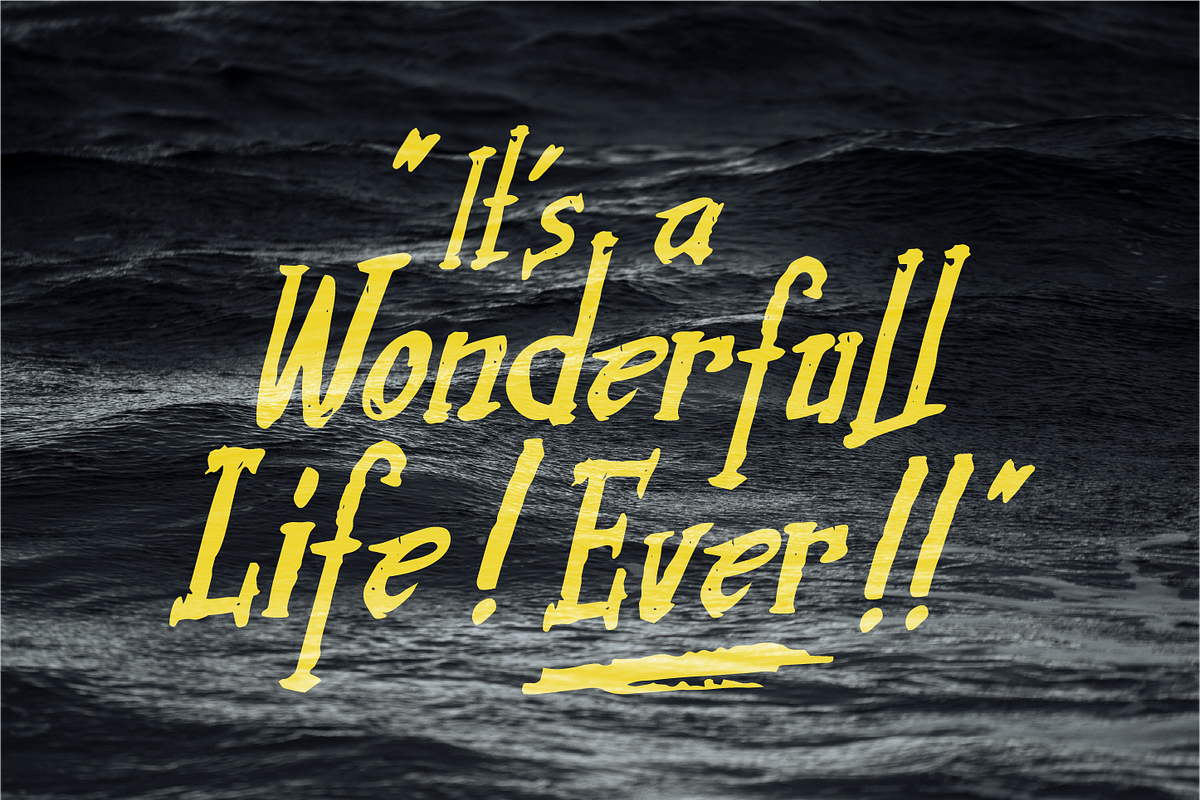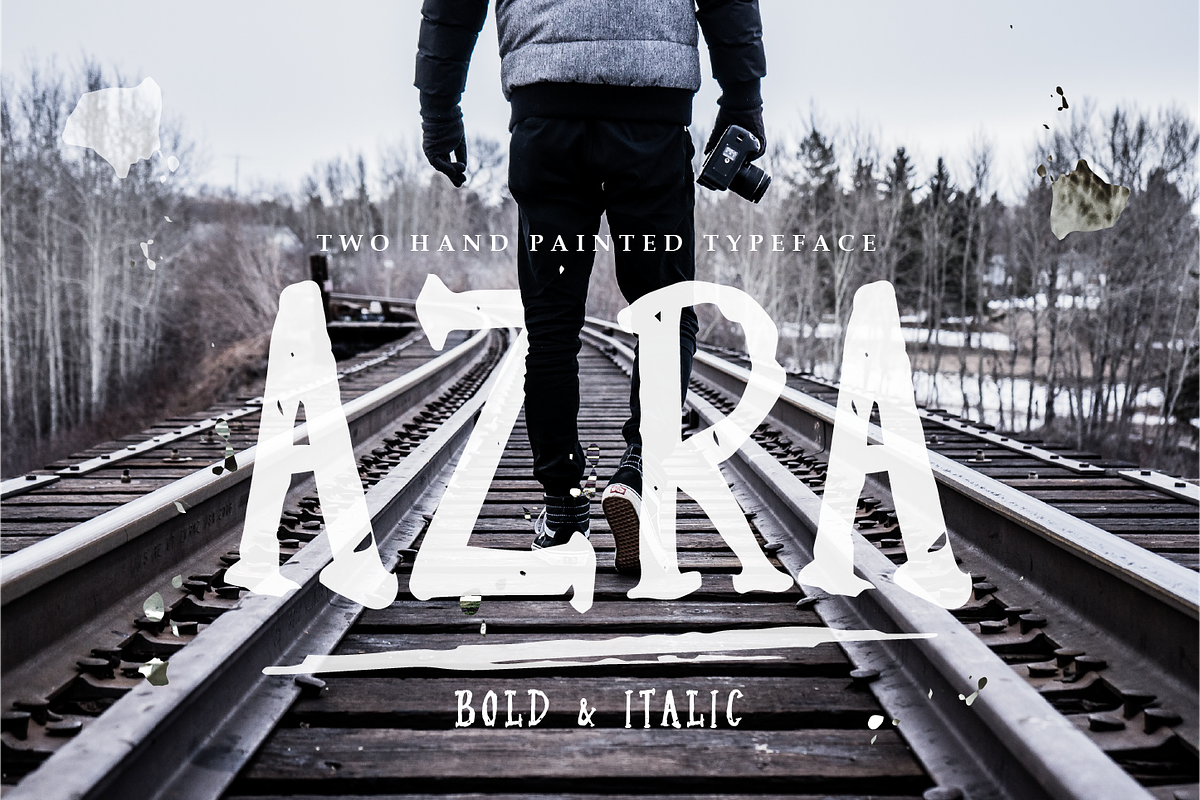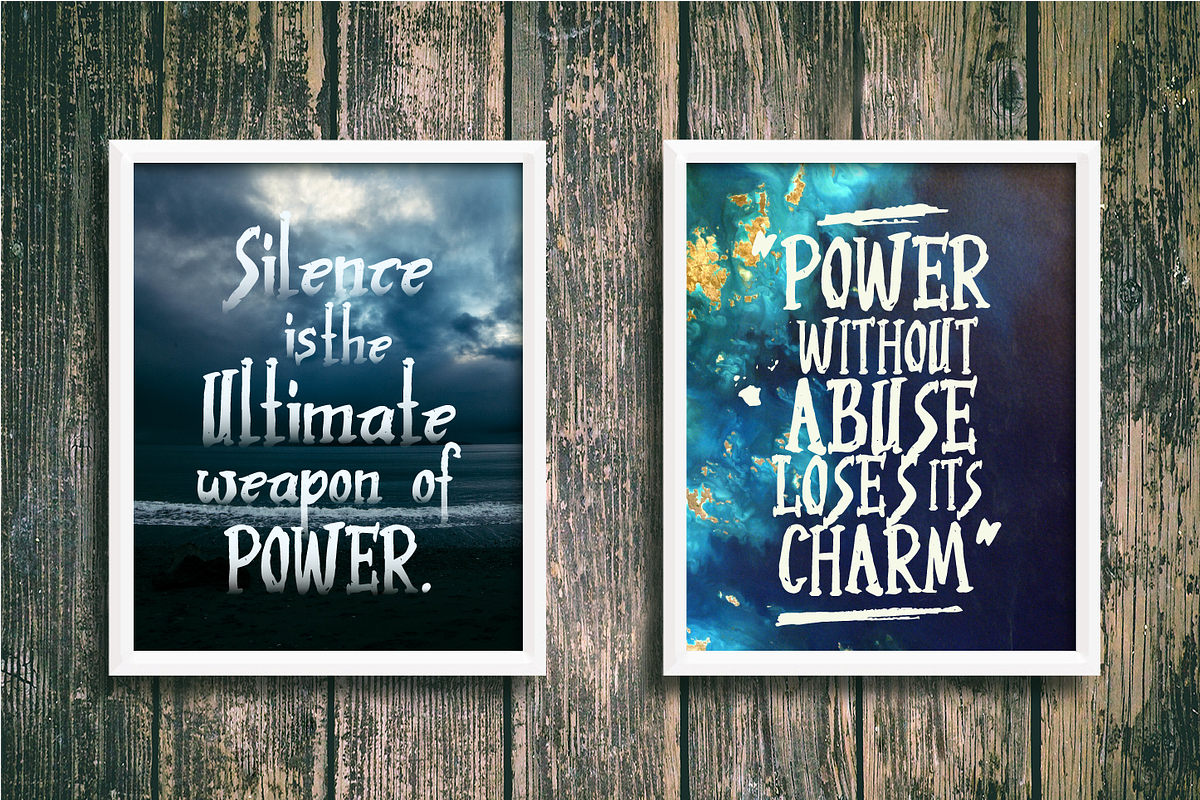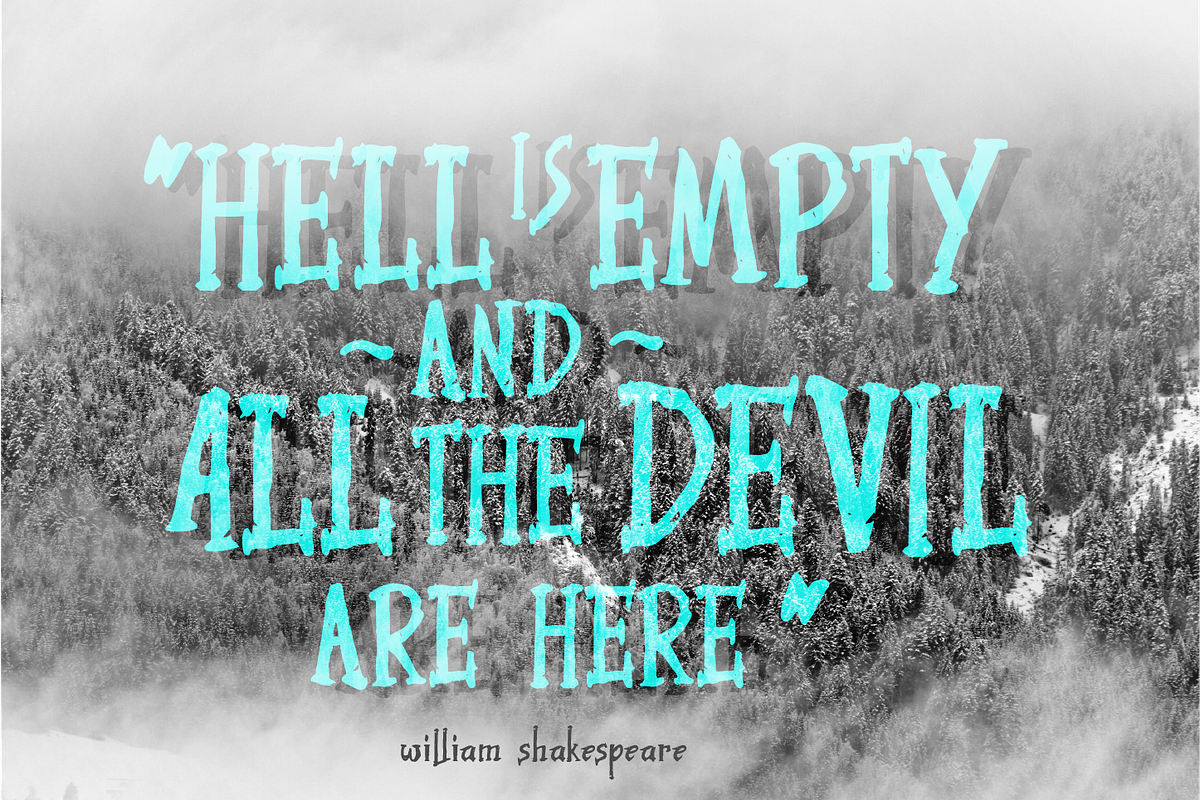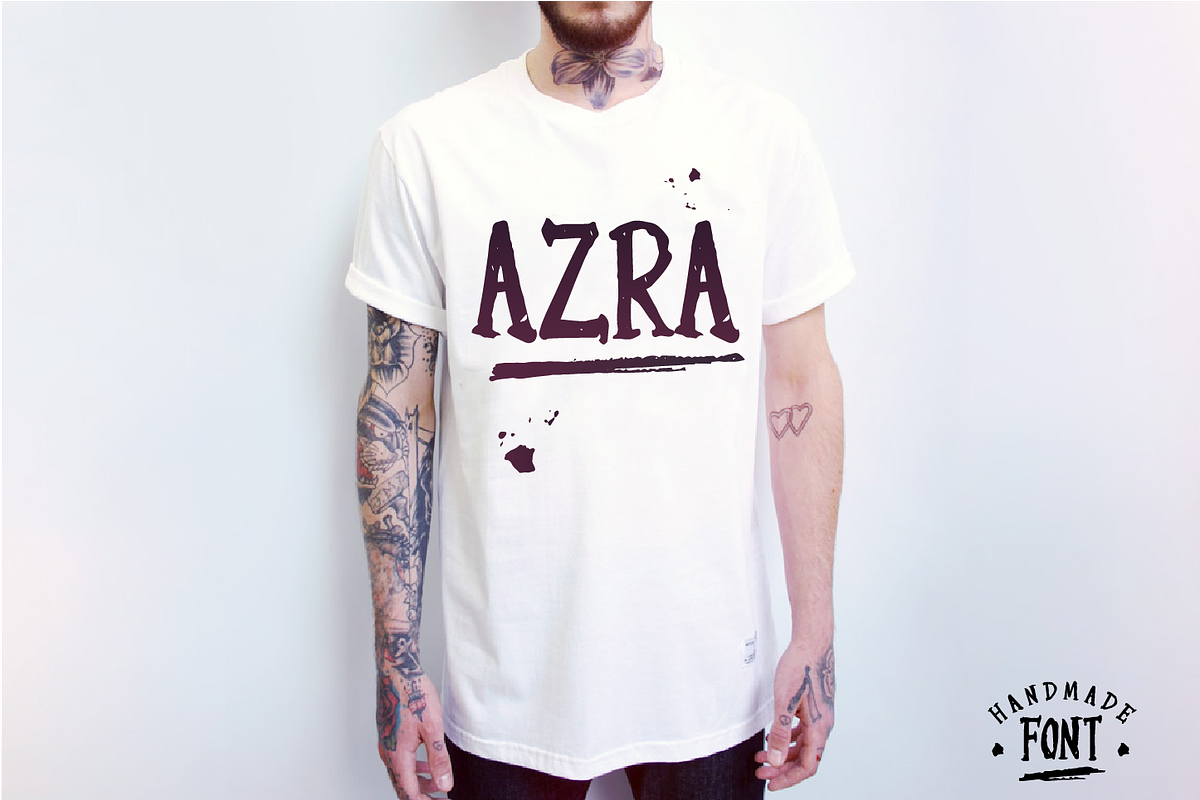
Azra Typeface
Azra Typeface by Esui Studio is a font selected for branding, posters, packaging, typography.
- Azra Typeface is a rough handbrush includes two font family that could be used in a variety of designs such as Logos, Greeting Cards, Statio
- It comes with a large range of characters including capitals, lower-case, numerals, punctuation, currency and accents.
- Azra Typeface is a rough handbrush includes two font family that could be used in a variety of designs such as Logos, Greeting Cards, Statio
- It comes with a large range of characters including capitals, lower-case, numerals, punctuation, currency and accents.
Why Azra Typeface is worth a look
Azra Typeface by Esui Studio fits naturally into Branding, posters, packaging, typography.